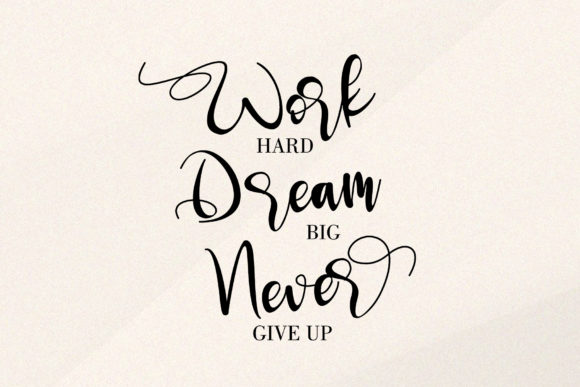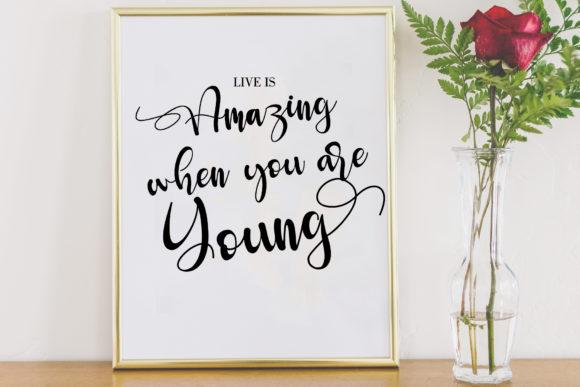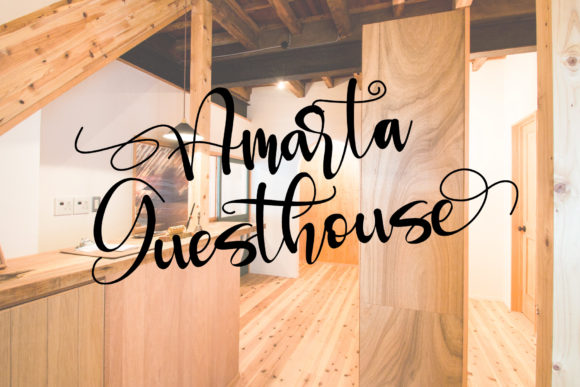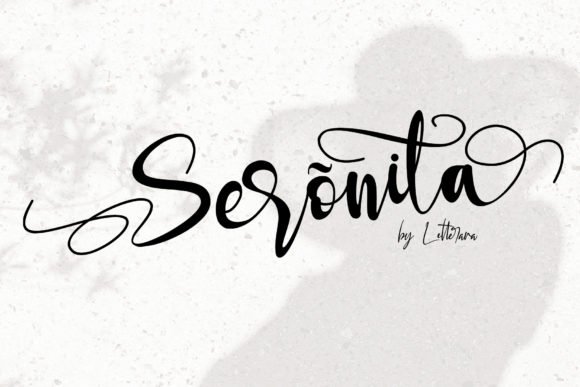
Introduction to Seronita Font
Seronita is a modern calligraphy font.
It has a natural writing style and is perfect for adding an elegant and luxurious feel to your designs .
Why Choose Seronita Font?